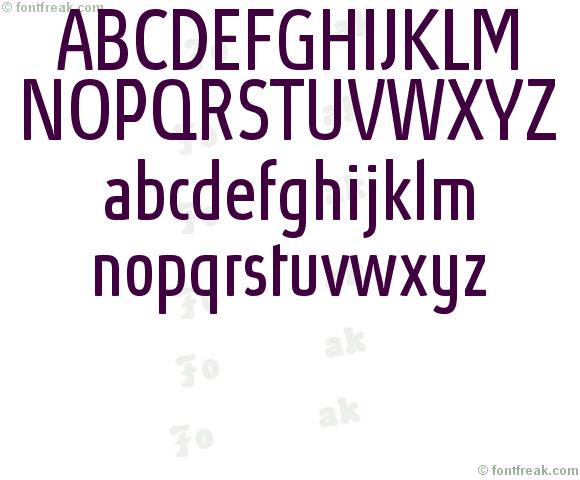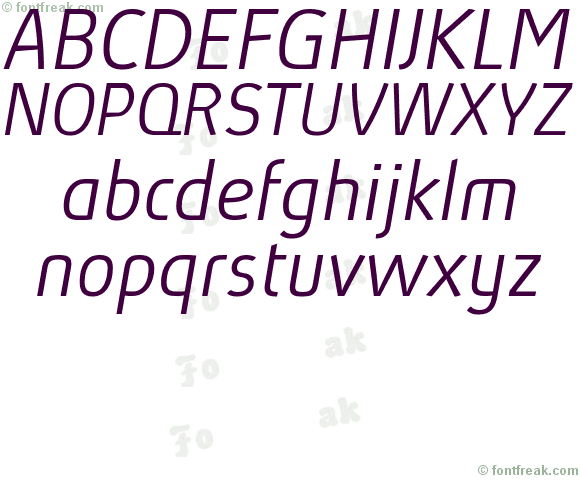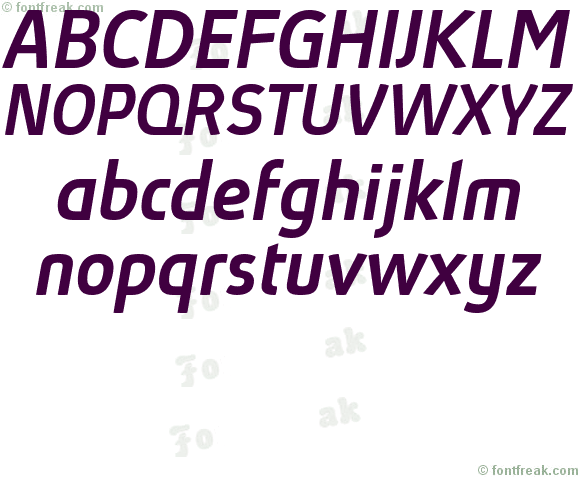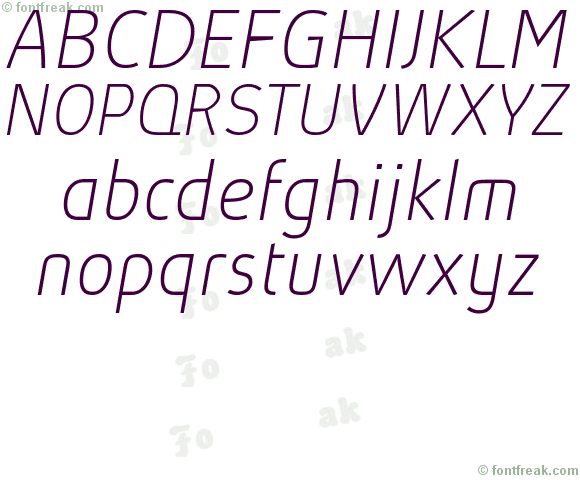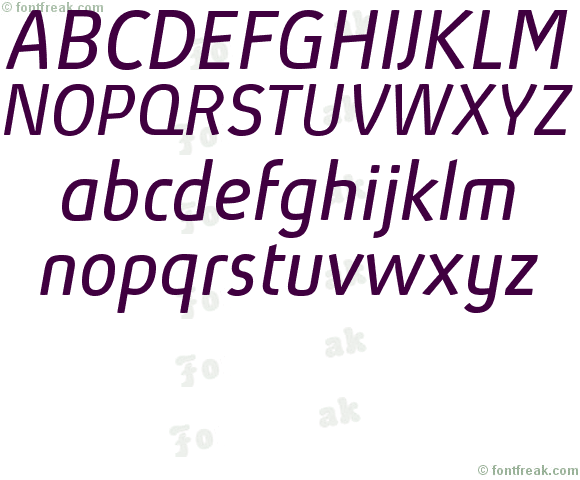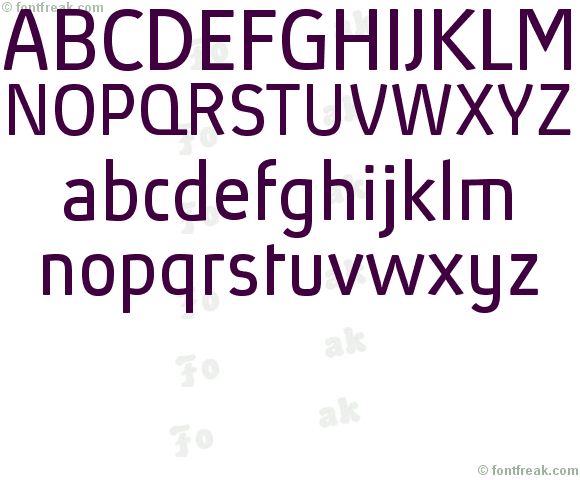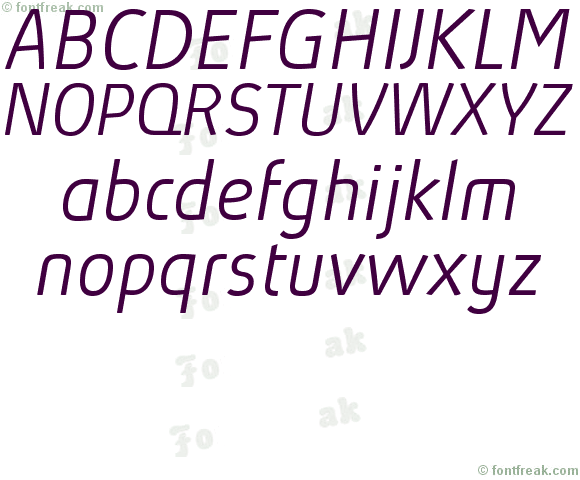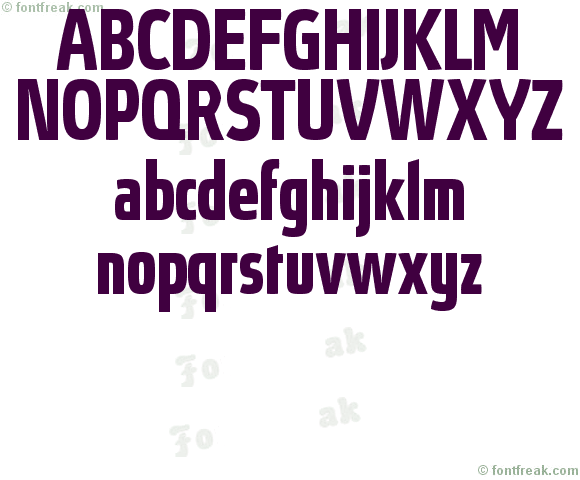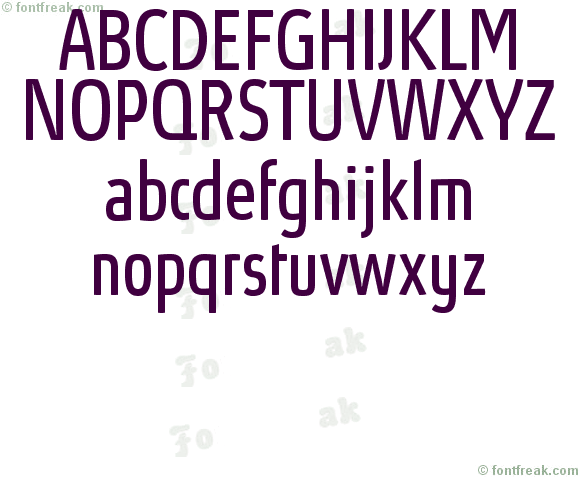
What sets AbsolutPro-Thin apart is its balance of simplicity and elegance, making it a standout choice for anyone in need of a refined typeface. For those interested in incorporating this stylish font into their projects, the AbsolutPro-Thin font free download is readily available, allowing for seamless integration into a variety of design workflows.